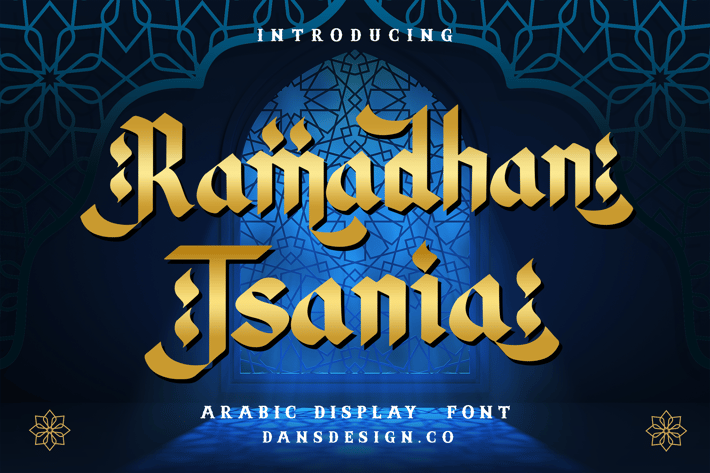
Ramadhan Tsania Arabic Decorative Font
Ramadhan Tsania Arabic Display Font, highly detailed. Arabic Display Font.
It would make a great choice for exquisite retro-urban designs, business branding, logos, Apparel designs, and more.